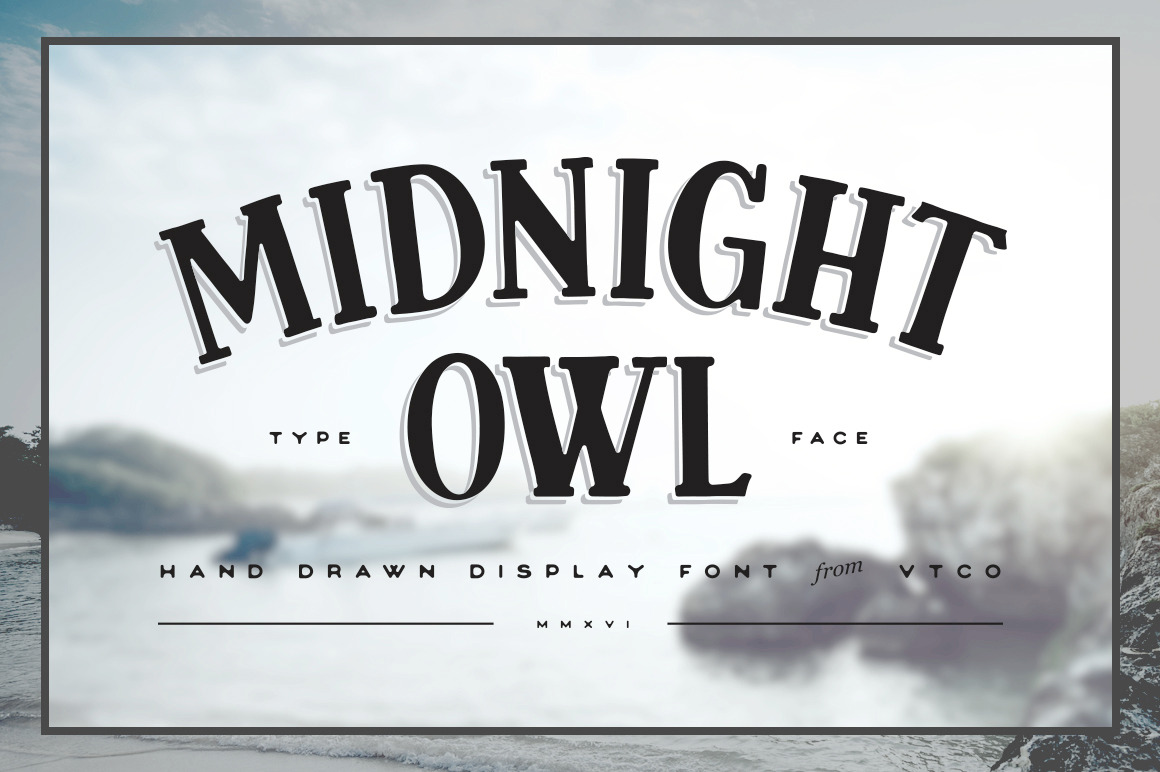
Midnight Owl Display Font
Midnight Owl is a condensed, hand lettered display font that was based on modernist-serif letterforms and packs a ton of quirky character into one single font. Use it clean, or dress it up a bit with the bonus decorative layers, including a drop shadow & inlay.
Midnight Owl comes with all basic latin glyphs, punctuation, and numerals, as well as basic european support. It makes the perfect font choice for any project where you may need a bit of that human-touch, from logos to packaging and web design, this font will definitely add a bit of character to any design project.